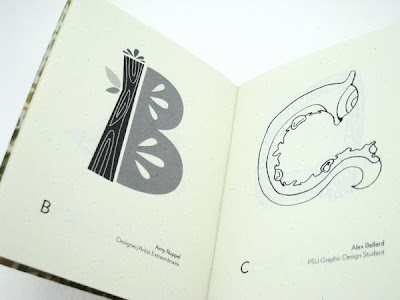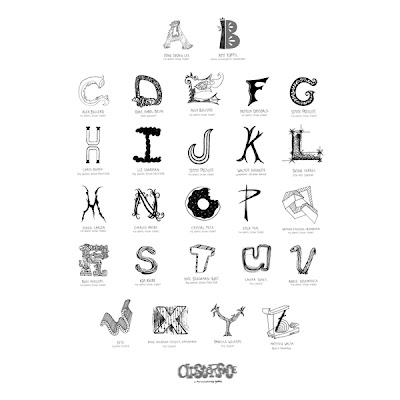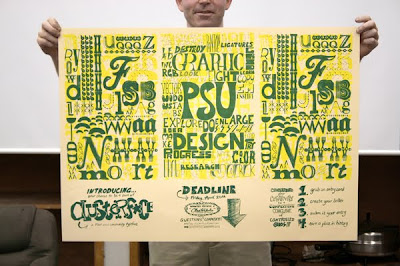
TypeFace Tuesday :: clusterf*ce
clusterf*ce is a communal typeface created by a smorgasbord of artists and designers from Portland, OR. Such a cool idea!